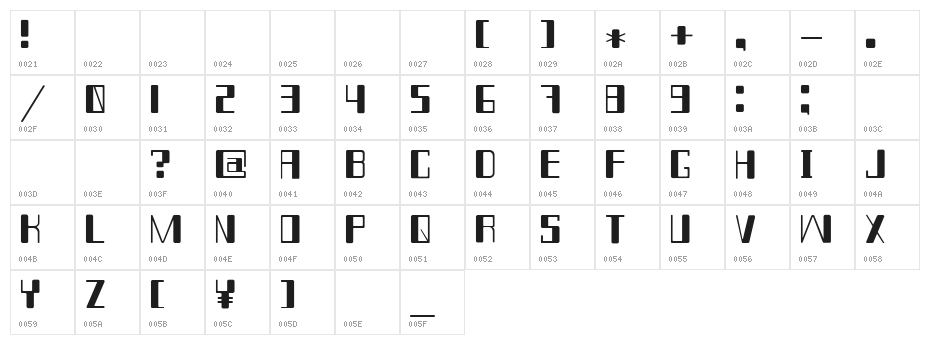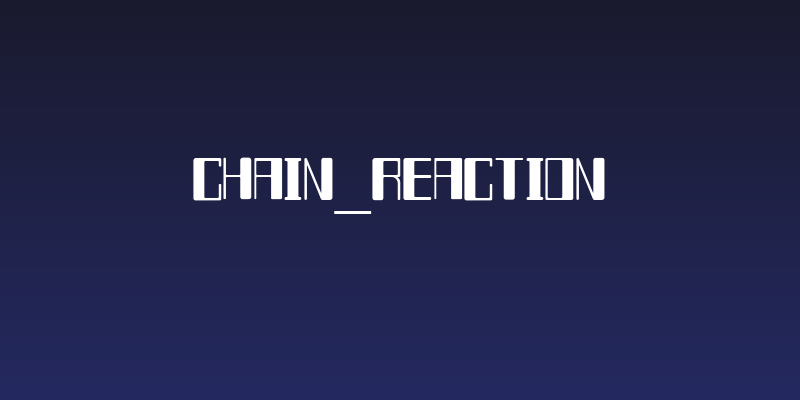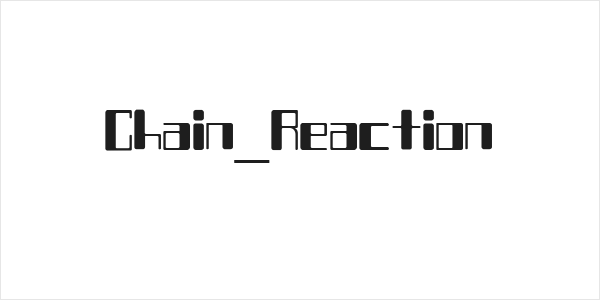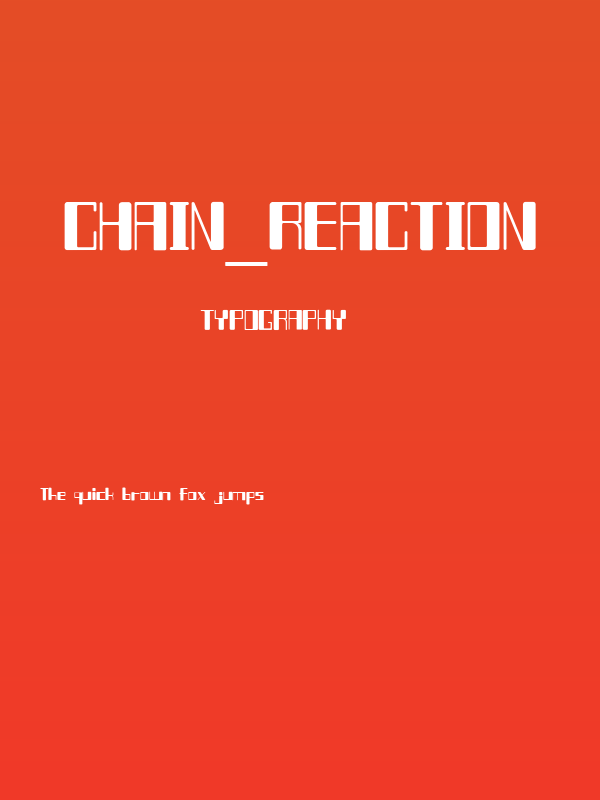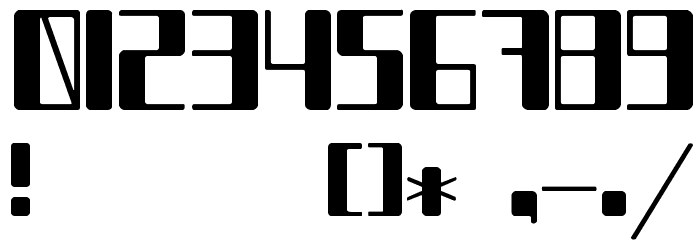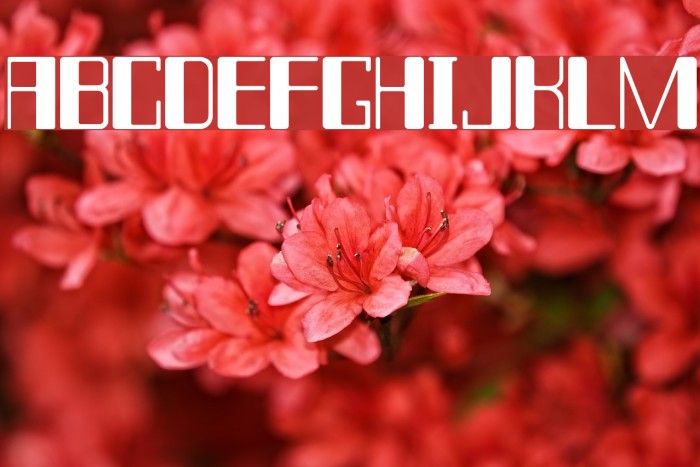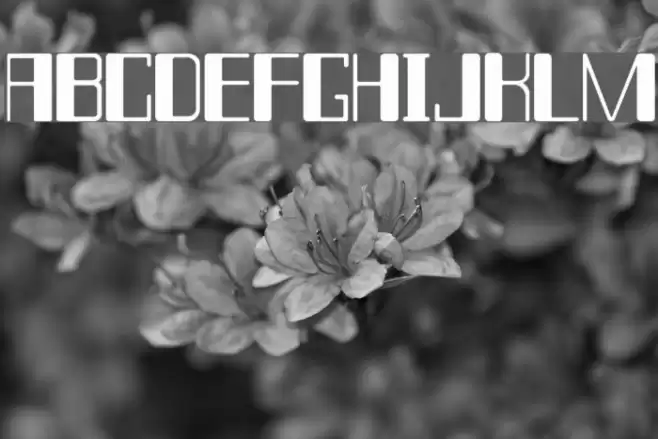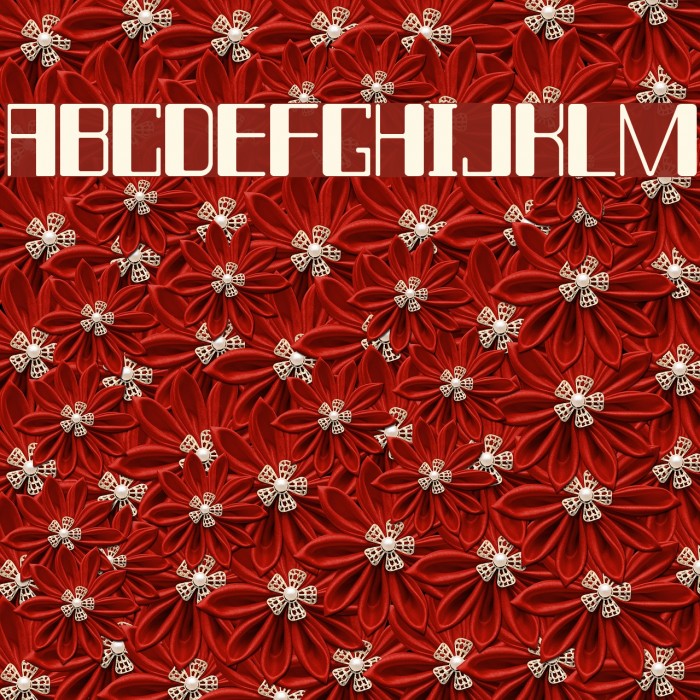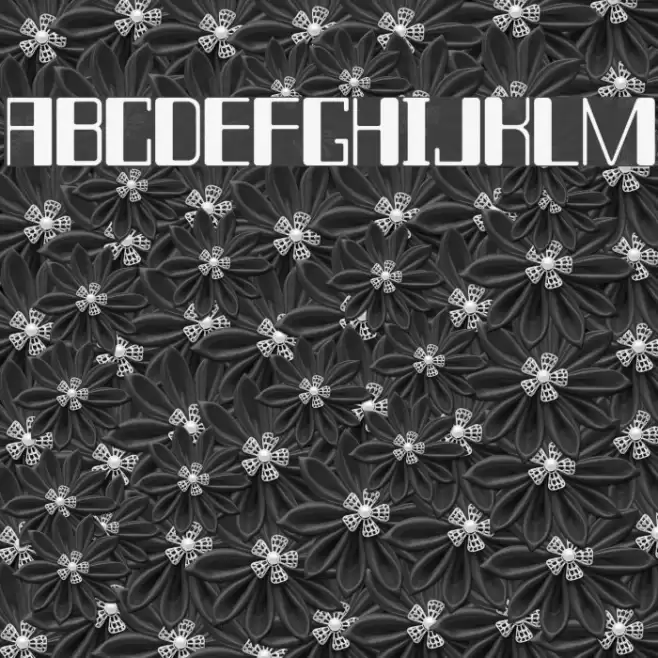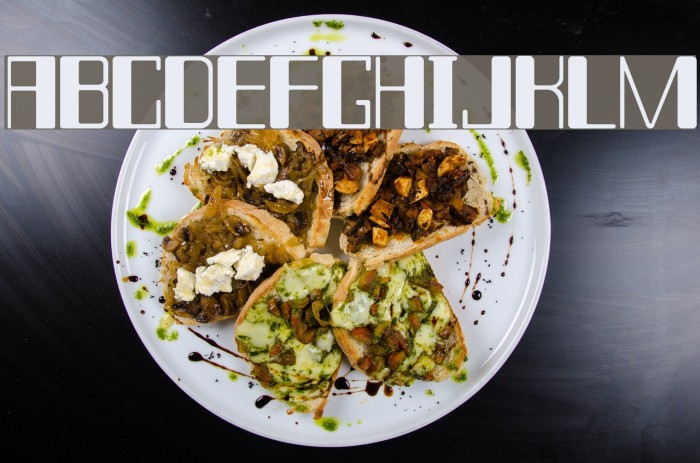
Chain_Reaction Font
Chain_Reaction Description
This font features a bold, geometric design with a futuristic flair. The characters are constructed with a mix of straight lines and sharp angles, giving it a distinct, modern appearance. The uppercase letters are particularly striking, with unique shapes that stand out, while the lowercase letters maintain a consistent style that complements the uppercase. The numbers and special characters follow the same geometric theme, ensuring a cohesive look across all glyphs. This font's design is both eye-catching and versatile, making it suitable for a variety of creative applications.
| Proposed Projects | Ideal for technology branding, sci-fi themed projects, modern posters, and digital media. |